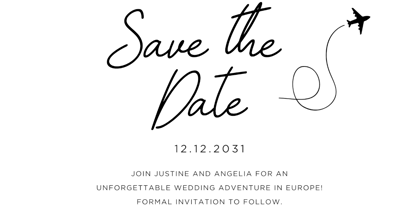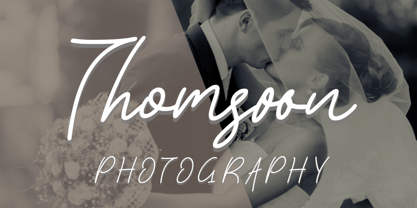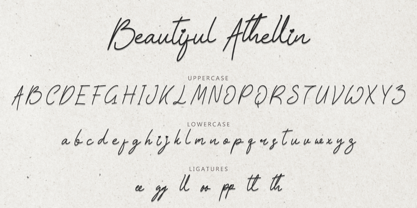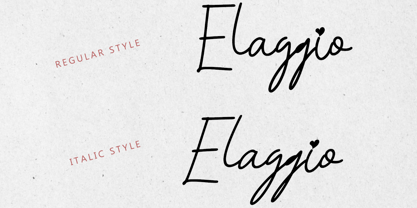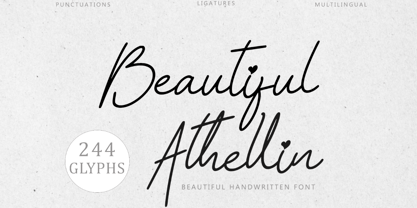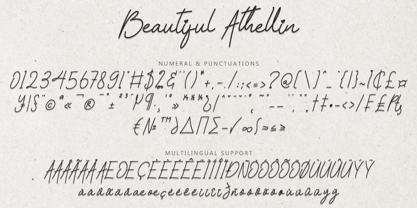
Beautiful Athellin
by Yoga Letter
The Beautiful Athellin Font Family was designed by Isroni Yoga Prasetya and published by Yoga Letter. Beautiful Athellin contains 2 styles and family package options. More about this family
"Beautiful Athellin" is a beautiful and charming handwritten monoline font. It comes with lowercase, uppercase, ligatures, numbers, punctuation, and multilingual support. Perfect for wedding, photography, Christmas, Valentine's, invitations, certificates, birthdays, etc.
Designers: Isroni Yoga Prasetya
Foundry: Yoga Letter